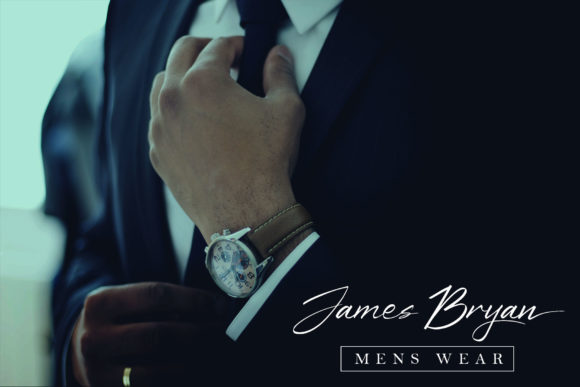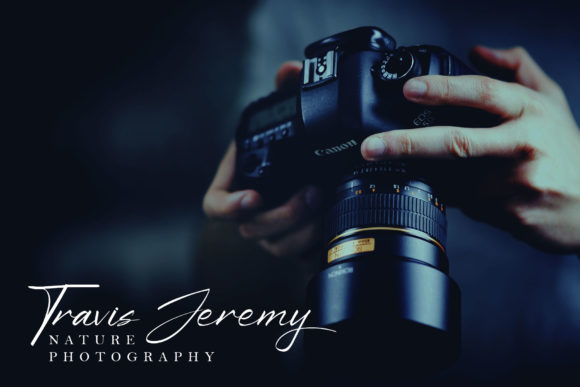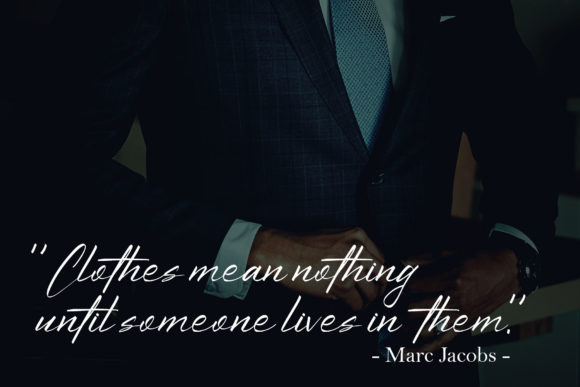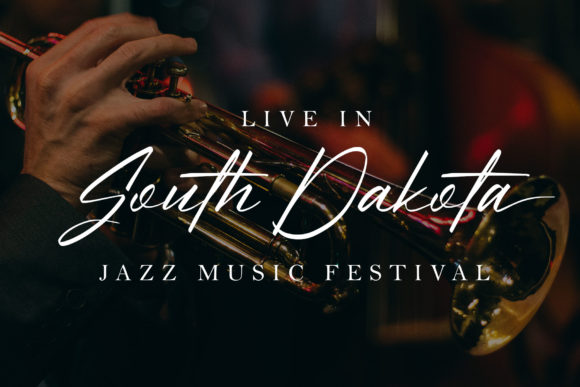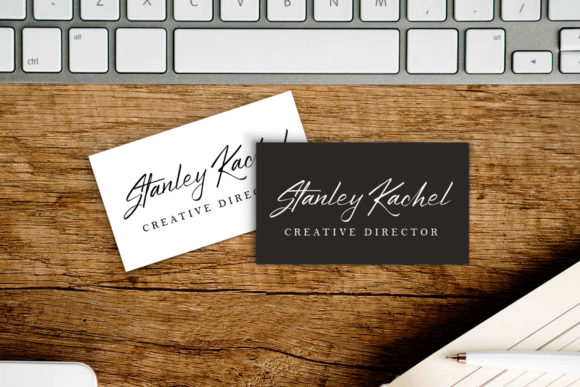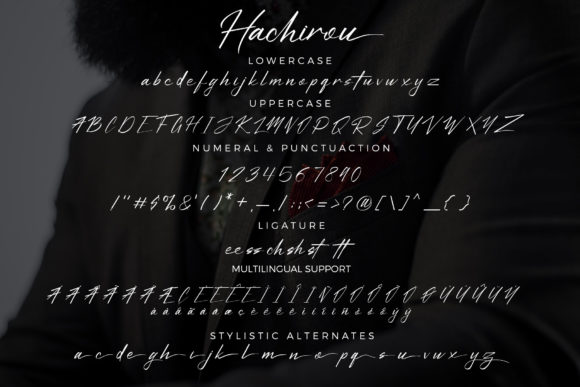
Introduction to Hachirou Font
Remember that moment when you’re working on a creative project and you’re stuck trying to find the perfect font to bring your vision to life? The frustration of scrolling through countless options, only to settle for something that just doesn’t quite fit. But what if you stumbled upon a font that not only meets your expectations but exceeds them? Welcome to the world of Hachirou Font, a stunningly bold and sophisticated script that’s sure to elevate your design to the next level.
Whether you’re a seasoned designer or just starting out, Hachirou Font is a valuable resource that’s worth getting to know. With its modest elegance, this font is perfect for anyone looking to add a touch of sophistication to their designs. And the best part? You can download it for free, making it an accessible and high-quality design resource for any creative project.
Key Features of Hachirou Font
- High-quality, unique design ideal for creative projects and design resources.
- Features a transparent background, making it easy to customize and combine with other design elements.
- Designed with a bold, modern aesthetic, perfect for adding a touch of sophistication to your design.
- Perfect for use in a variety of creative projects, from logos and branding to digital art and graphics.
Honest Review: Hachirou Font
As a designer, I’m always on the lookout for high-quality design resources to elevate my creative projects. Recently, I stumbled upon the Hachirou Font, and I’m excited to share my honest review with you.
What works well: ✨ The Hachirou Font is incredibly versatile, with a beautiful, elegant design that can be used in a variety of contexts. I particularly love the transparent background option, which makes it easy to layer and customize the font to fit my project’s needs.
What’s more, the font is available for free download, which is a huge plus for designers working on a budget. The quality is also top-notch, with clear and crisp lines that make it perfect for use in print or digital media.
- High-quality, elegant design
- Perfect for print or digital media
Limitations: ⚠️ While the Hachirou Font is incredibly versatile, it may not be the best choice for projects that require a bold, attention-grabbing font. Additionally, the font’s design may not be suitable for projects that require a lot of customization or modification.
Overall, I’m really impressed with the Hachirou Font, and I would highly recommend it to designers working on a variety of creative projects.
Hachirou Font
The Hachirou Font is perfect for creative projects such as logos, branding, and marketing materials. Its high-quality design and transparent background make it ideal for layering and composition.